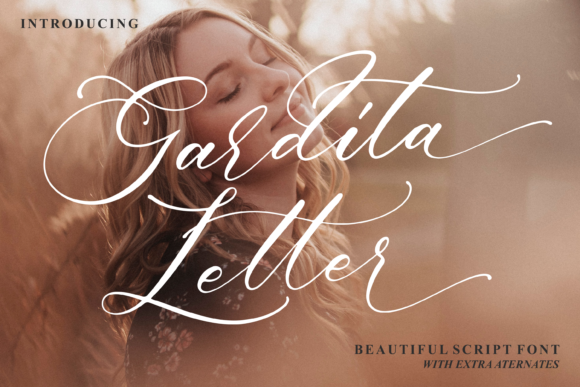
Unleash the Enchanting Beauty of Gardita Letter Font - A Masterpiece for Flyer Designs
Step into the world of captivating typography with Gardita Letter Font, a mesmerizing creation by Letterfabric, specifically tailored to elevate your flyer designs to new heights. This elegant script font exudes a charming handwritten style, infusing your designs with a personal touch and a touch of sophistication.
Gardita Letter's intricate strokes and sweeping curves evoke a sense of artistry, transforming your flyers into captivating works of art. Its unique character brings a touch of whimsy and playfulness, making it ideal for creating flyers that stand out and leave a lasting impression.
With Gardita Letter, you have the power to craft truly remarkable flyers that capture attention and convey your message with grace and eloquence. Imagine crafting wedding invitations that exude romance and elegance, promotional flyers that demand attention with their vibrant energy, or event posters that ignite excitement with their bold and eye-catching presence.
This extraordinary font is PUA encoded, offering effortless access to a treasure trove of stunning glyphs and ligatures. Unleash your creativity and explore endless possibilities as you incorporate these elements into your designs, adding an extra layer of visual intrigue and depth.
Gardita Letter's versatility extends beyond flyers; it shines in various creative projects, including branding, logos, packaging, social media graphics, and website designs. Allow your imagination to soar as you discover new and enchanting ways to utilize this font's captivating charm.